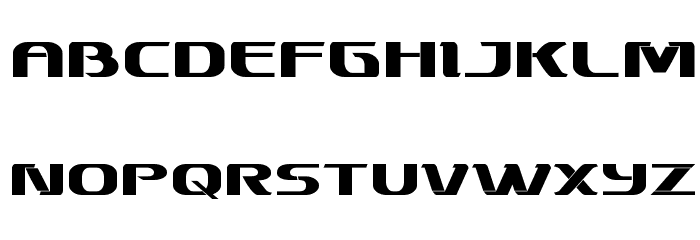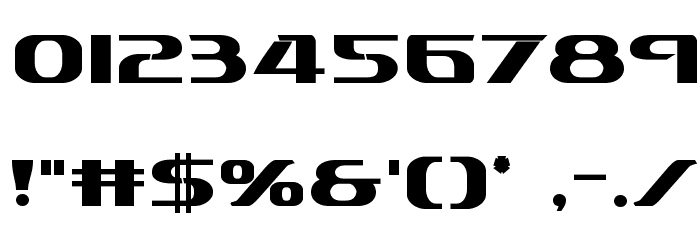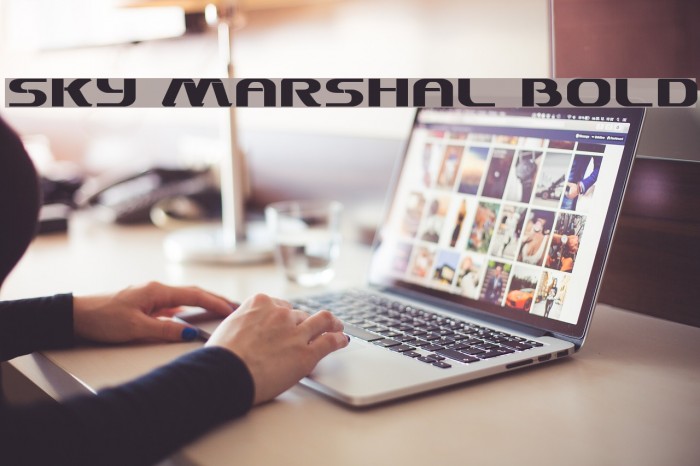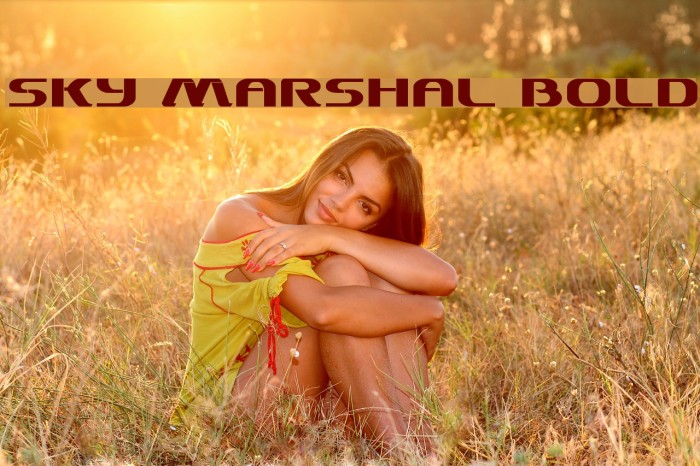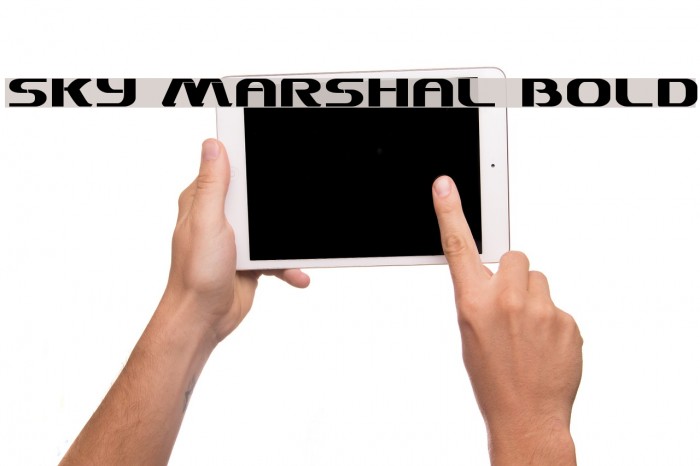
Sky Marshal Bold Font
This font features a bold and futuristic design with sharp, angular edges and a distinct geometric style. The uppercase letters are particularly striking, with a strong presence and a unique cut-out effect that adds a sense of movement and dynamism. The lowercase letters maintain the boldness, offering a consistent look throughout. Numbers and special characters are equally bold, ensuring readability and impact. The overall design suggests a modern and technological aesthetic, making it suitable for projects that require a forward-thinking and innovative appearance.
A bold, futuristic font with sharp, angular edges and a geometric style.
- Proposed Projects: Ideal for technology branding, sci-fi movie posters, video game titles, and modern advertising campaigns.